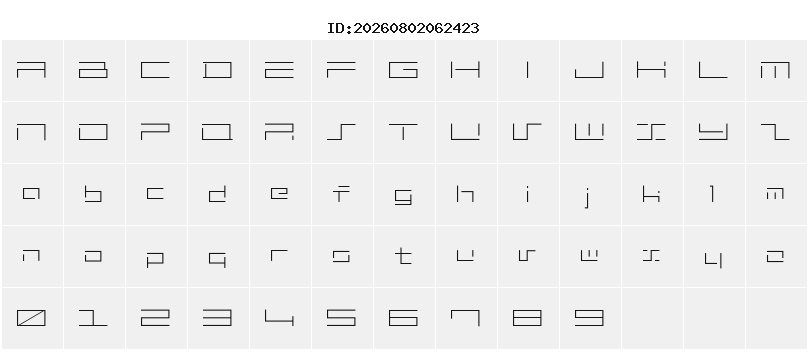
About MINIMALHARD2.ttf
MINIMALHARD2.ttf is a modern, elegant sans-serif font designed for ultimate readability and visual harmony. Perfect for branding, headlines, web design, and print materials.